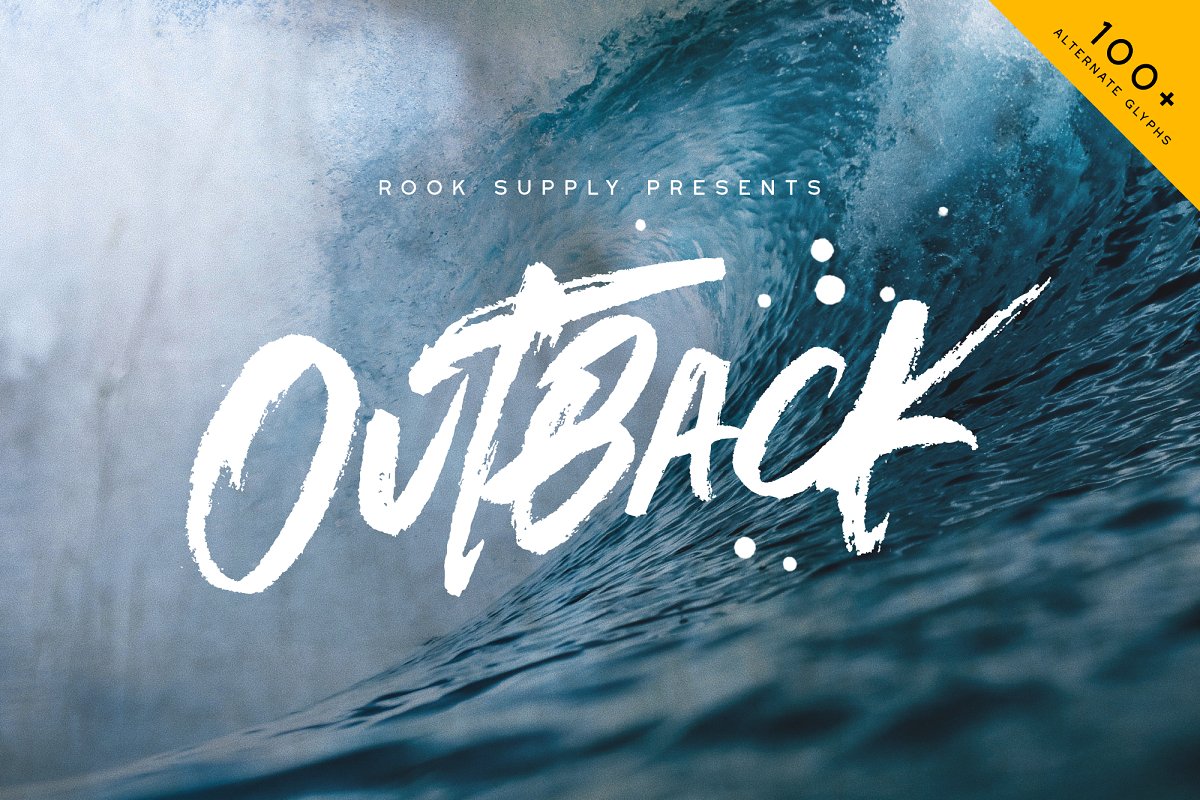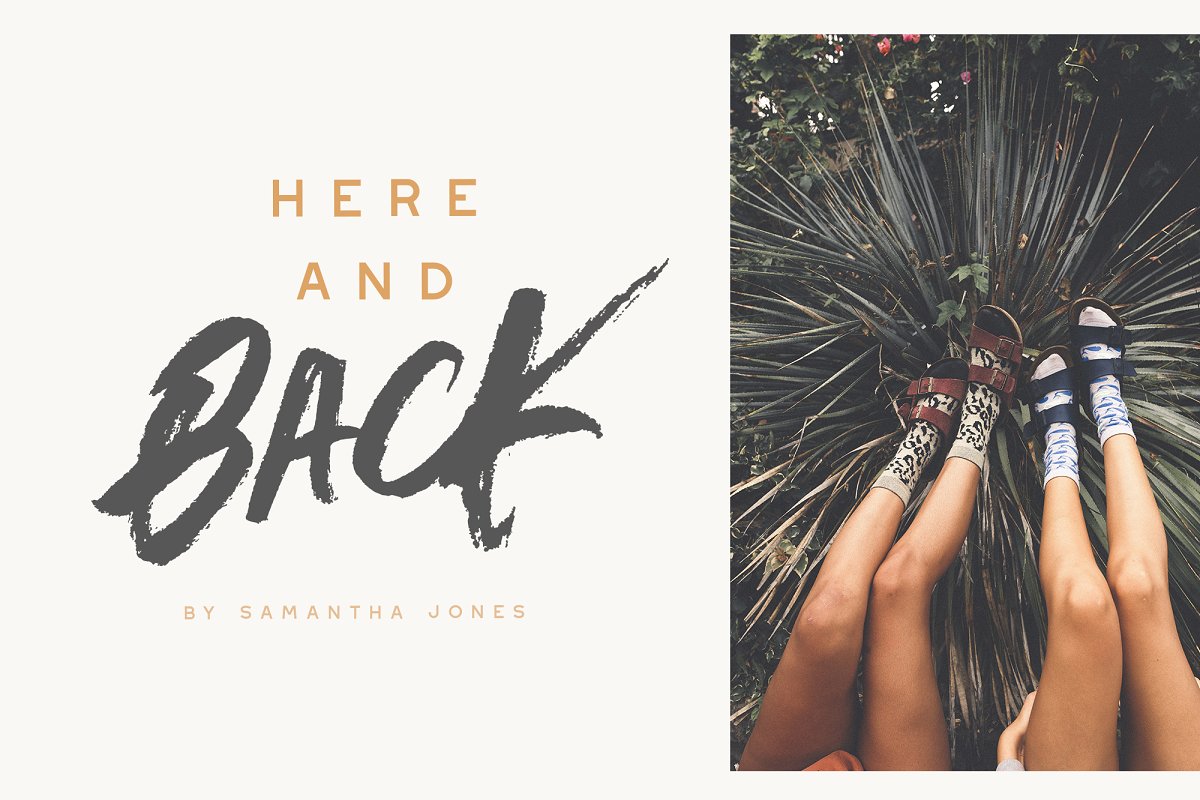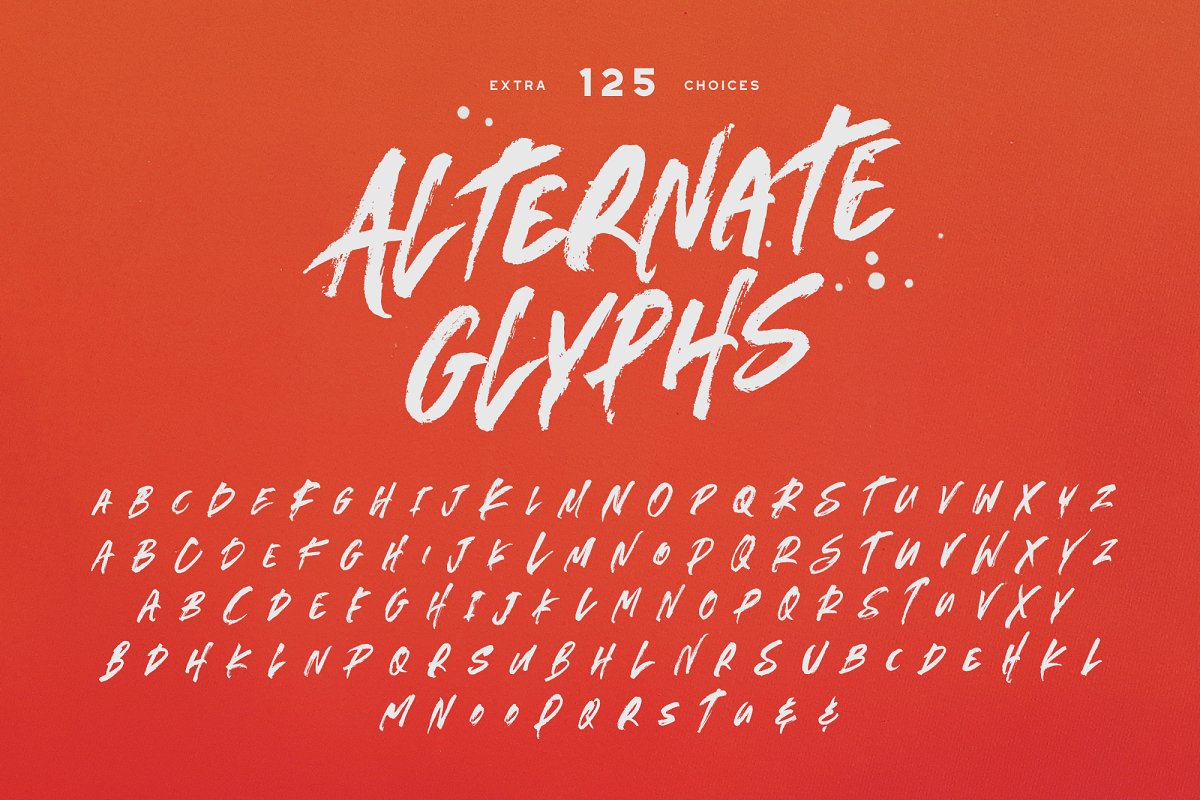
About the Outback Brush Font
With Outback you’re not just getting a typical a-z font, You’re getting a font that has over 100 alternate glyphs, so that you can use the font to write phrases a ton of different ways, So, if you’re looking for the perfect ‘R’, you have 6 additional options to choose from in addition to what’s programmed for the default uppercase and lowercase characters
Choose more sharp characters if you’re going for something more aggressive, or more rounded characters if you want something with more of a laid back flow, Please note that not all software can support alternate glyphs, but many design programs like Adobe Photoshop, Illustrator and inDesign are designed to work harmoniously with alternate glyphs
BONUS Swashes and SplattersIncluded is a font file full of underlines and splatter effects, Type the characters a-z using this font for a variety of effects, Add these to your text to spice it up a little bit and add some style and grit, 125 Alternate GlyphsI’ve included a ton of extra glyphs covering a-z, so that you have plenty of options to get the perfect style and vibe across with your lettering